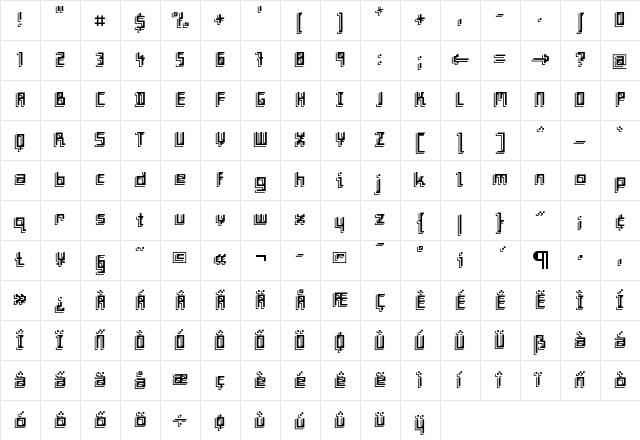
F2FFrontpageFour LT Std Regular
| Foundry | Linotype Library GmbH |
| Designer | Alexander Branczyk |
Design Context for F2FFrontpageFour LT Std Typeface
F2FFrontpageFour LT Std is a composed and adaptable typeface that performs quietly and consistently across a wide range of design contexts. The delicate stroke weight brings airiness and refinement to layouts.